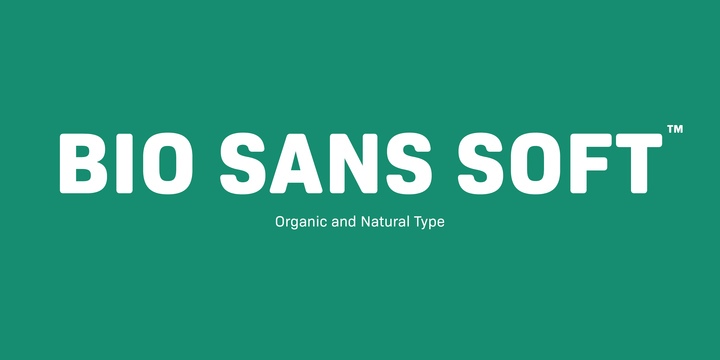
Bio Sans Soft Font
Bio Sans Soft Font is perfect for organic product branding, natural health companies, eco-friendly marketing, sustainable businesses, wellness centers, environmental campaigns, green technology firms, organic food packaging, natural cosmetics, and authentic sustainability communications.
What makes Bio Sans Soft Font exciting is its organic harmony that embodies the gentle balance of nature and sustainable living through softly crafted letterforms. This eco-friendly typeface combines biological inspiration with contemporary functionality, creating a personality that communicates sustainability, natural wellness, and genuine environmental consciousness. The font's bio-inspired character and soft appeal make it perfect for brands committed to environmental responsibility and natural living in today's eco-conscious marketplace.
The Bio Sans Soft Font family includes Regular, Bold, Light, Medium, Organic, Natural, Condensed, and Eco variants. Each weight maintains the font's bio-inspired character while providing comprehensive typographic flexibility for sustainable brand identity systems and eco-friendly design applications across diverse environmental platforms.
Whether you're developing eco-brand identities, creating sustainable marketing materials, designing organic product packaging, or building environmental awareness campaigns, Bio Sans Soft Font delivers unmatched organic appeal and environmental sophistication. Its natural presence makes it perfect for organic companies, wellness brands, sustainable technology firms, and environmental organizations seeking authentic eco-friendly representation.
The font's soft proportions and bio-inspired details create a harmonious reading experience that reflects the gentle rhythms of nature and sustainable living. Each letterform has been carefully crafted to evoke natural growth and environmental balance while maintaining excellent readability across modern sustainability applications.
This versatile typeface excels in eco-friendly environments, offering designers the natural appeal needed for comprehensive sustainable brand communication strategies. The extensive character set includes organic alternates, eco-friendly ligatures, and environmental symbols for green market positioning and sustainability brand storytelling.